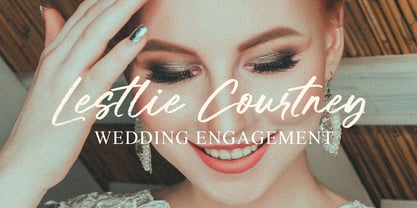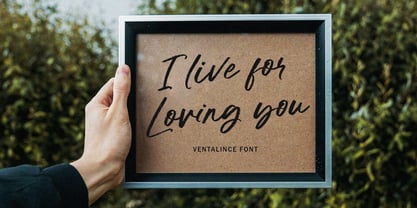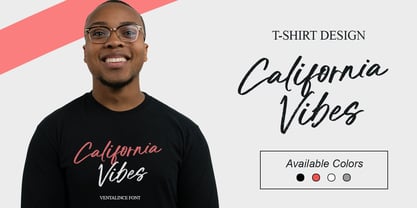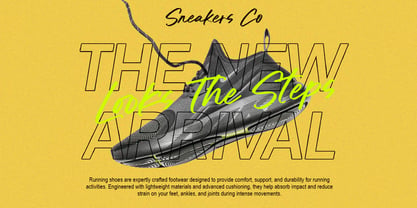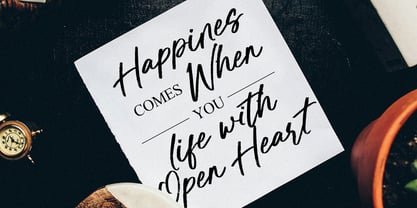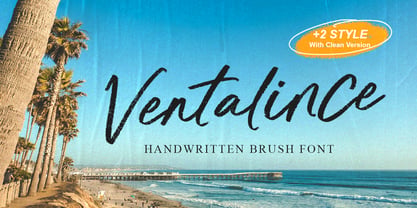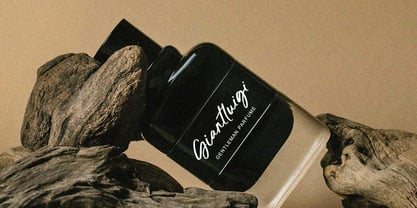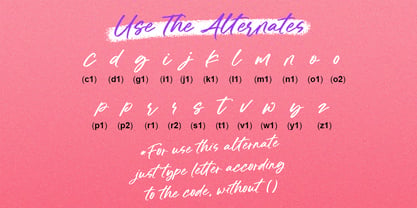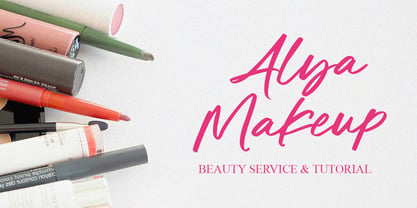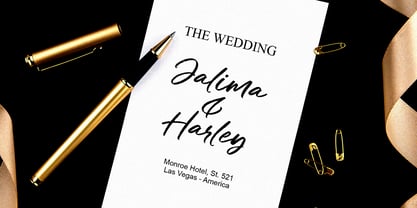
Ventalince
La famille de polices Ventalince a été conçue par Suyuti Amien et publiée par Myn Type. Ventalince contient 2 styles et options de package familial. En savoir plus sur cette famille
Ventalince is a typeface natural handwriting texture brush font that replicates the look of authentic, hand-painted brush strokes with visible texture, creating a raw and organic feel.
This font include with clean style that perfect for designs that need a personal, artistic touch while maintaining readability and versatility.
Perfect for Logos & Branding, Invitations & Greeting Cards, Social Media Graphics, Packaging Design, T-shirts & Merchandise, Music & Band Posters, Streetwear & Apparel Design, Grunge or Urban-Themed Designs, Book Covers & Movie Titles.